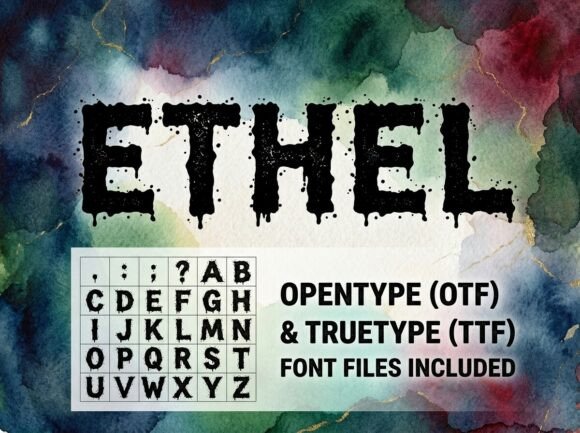
Ethel Font: A Stunning Decorative Display Font for Creative Minds
Are you tired of using the same old fonts for your designs? Look no further than Ethel Font, a stunning decorative display font that’s sure to turn heads. With its unique artistic elements and strong visual personality, this font is perfect for creators who want to break away from the ordinary and make a statement.
What Makes Ethel Font So Special?
Ethel Font is a versatile decorative display font that’s designed to be the center of attention. Its unique artistic elements and strong visual personality make it perfect for a variety of design projects, from bold headlines and artistic logos to creative packaging. Whether you’re a graphic designer, crafty DIY enthusiast, or social media influencer, Ethel Font is sure to elevate your designs to the next level.
Key Features of Ethel Font
- Unique Artistic Elements: Ethel Font features unique artistic elements that set it apart from other fonts. Each letter is carefully crafted to make a statement and add a touch of elegance to your designs.
- Strong Visual Personality: This font has a strong visual personality that’s sure to grab attention. Whether you’re using it for a headline, logo, or packaging, Ethel Font is sure to make a lasting impression.
- Versatile: Ethel Font is versatile enough for a variety of design projects, from bold headlines and artistic logos to creative packaging.
- Professional and Polished Finish: Despite its decorative nature, Ethel Font maintains a professional and polished finish that’s perfect for high-end designs.
⚠️ IMPORTANT NOTE BEFORE PURCHASE: Ethel Font is an ALL-CAPS (Uppercase Only) display typeface. It does not include lowercase letters. It is specifically designed for high-impact headlines, logos, and decorative initials where every letter is a work of art.
Who is Ethel Font For?
Ethel Font is perfect for:
- Graphic Designers: If you’re a graphic designer looking for a unique and eye-catching font for your next project, Ethel Font is a great choice.
- Crafty DIY Enthusiasts: If you’re a crafty DIY enthusiast who loves to create handmade cards, gift tags, and other paper crafts, Ethel Font is a great addition to your design toolkit.
- Social Media Influencers: If you’re a social media influencer looking for a way to elevate your visual content and make it more engaging, Ethel Font is a great option.
Tips for Using Ethel Font
Here are a few tips for using Ethel Font:
- Use it for Headlines: Ethel Font is perfect for bold headlines and titles. Use it to grab attention and make a statement.
- Pair it with Other Fonts: Ethel Font pairs well with other fonts, especially sans-serif fonts. Try pairing it with a clean sans-serif font for a striking contrast.
- Experiment with Colors: Ethel Font looks great in a variety of colors. Experiment with different colors and textures to add depth and interest to your designs.
Ethel Font is a stunning decorative display font that’s perfect for creators who want to break away from the ordinary and make a statement. With its unique artistic elements and strong visual personality, this font is sure to elevate your designs to the next level. Whether you’re a graphic designer, crafty DIY enthusiast, or social media influencer, Ethel Font is a great addition to your design toolkit.